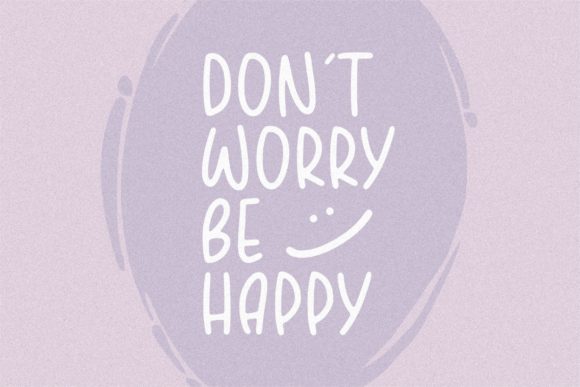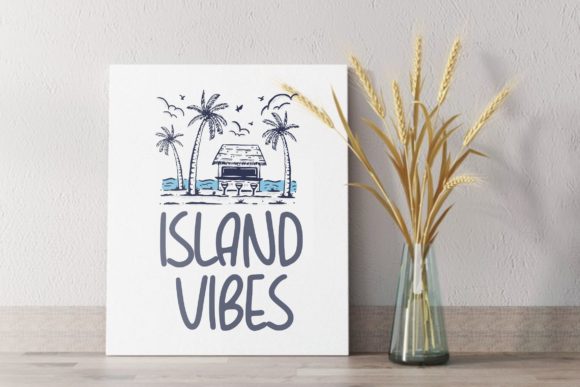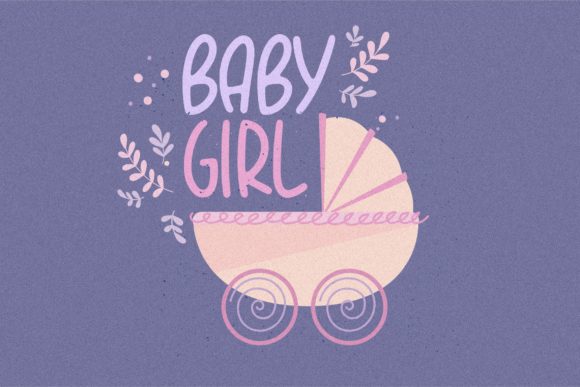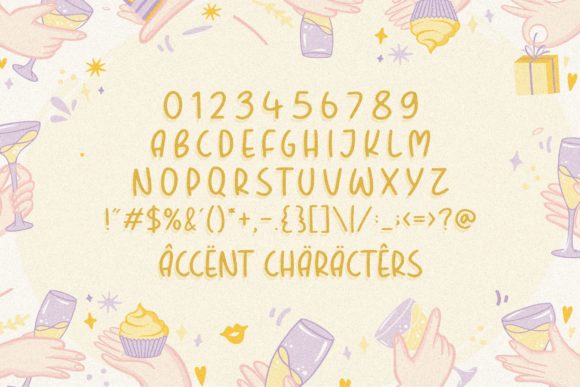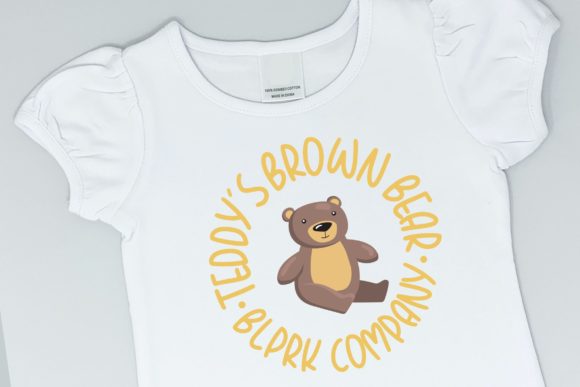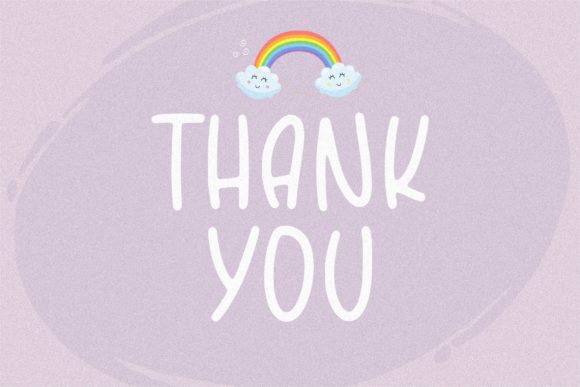
The Bounties Font: A Sweet Addition to Your Design Arsenal
I’ll never forget the time I was working on a branding project for a new bakery, and I just couldn’t find the right font to capture their playful yet elegant vibe. The client wanted something that felt handmade, yet polished enough for a high-end brand. That’s when I stumbled upon the Bounties font, and it was love at first sight! 💕
With its fun, round, hand-brushed, and handwritten style, Bounties exudes an innocent and clean aesthetic that’s perfect for a wide range of design projects. From product packaging and branding to magazines, social media, and wedding invitations, this font is sure to become a favorite in your design toolkit.
An Honest Review: The Good and the Quirky
What I Love About Bounties ✨
- ✅ Its unique, hand-brushed texture adds a touch of warmth and personality to any design
- ✅ The font’s rounded edges and clean lines make it both playful and elegant
- ✅ It’s incredibly versatile and can be used for a wide range of projects, from digital to print
- ✅ The font comes with a range of OpenType features, glyphs, and stylistic alternates to give you plenty of creative options
- ⚠️ Some users may find the font’s hand-brushed texture a bit too distressed for certain projects
- ⚠️ As with any handwritten font, it may not be the best choice for very long blocks of text
The Story Behind Bounties: Designer Inspiration
While the true story behind Bounties may be a mystery, it’s easy to imagine a designer with a passion for hand-lettering and a love for all things sweet and charming. Perhaps they were inspired by the rustic, homespun feel of vintage baking labels and the elegant simplicity of modern typography. Whatever the inspiration, Bounties is a font that’s sure to delight designers and clients alike.